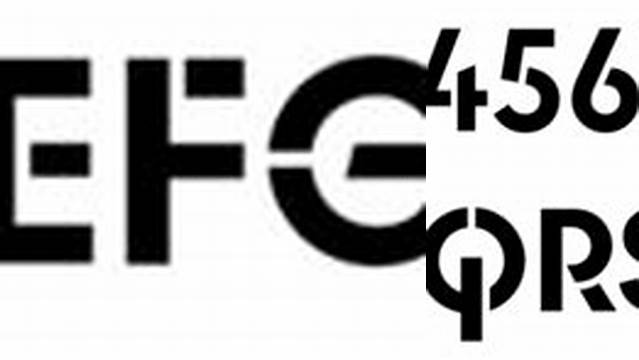
Hey guys! Are you on the hunt for a cool, eye-catching font that's totally free? Look no further! This article is all about the Prossimo Stencil Bold font, and, even better, it's a free download. We'll dive into what makes this font so awesome, where you can snag it, and how you can use it to make your designs pop. Whether you're a graphic designer, a student, or just someone who loves playing around with fonts, this is the place to be. Let's get started and unlock the awesomeness of the Prossimo Stencil Bold font!
What is the Prossimo Stencil Bold Font?
Alright, let's get down to the nitty-gritty. The Prossimo Stencil Bold font is a modern, stencil-style typeface. It's characterized by its bold, blocky letters with strategically removed segments, creating a unique and instantly recognizable look. Think of it as a font that screams “look at me!” without being too over the top. The “stencil” part comes from those little gaps in the letters, which were originally designed to allow for easy application using stencils (hence the name!). This font isn't just about aesthetics; it has a personality. It's strong, confident, and a little bit edgy. It's perfect for headlines, posters, logos, and anything else where you want to make a statement. Its versatility is also a major plus; it looks fantastic in both digital and print formats. You could use it for a band's album cover, a website header, or even a cool t-shirt design. The boldness of the font ensures that it grabs attention, while the stencil style adds a touch of sophistication and a nod to classic design. What makes it stand out, you ask? Well, it's the combination of its bold weight, the stencil cuts, and the overall modern feel. It's a great balance between functionality and style, making it a go-to choice for many designers and creatives. Now, imagine this font on a flyer – it's going to be awesome! The possibilities are truly endless. You could pair it with a simple, clean background to let the font shine, or use it in a more complex design to add a touch of boldness. The best part? It's easily readable, even at larger sizes. So, whether you're designing for a digital screen or a printed page, the Prossimo Stencil Bold font will deliver the impact you're looking for.
Prossimo Stencil Bold Font Features and Design
When we take a closer look at the Prossimo Stencil Bold font, you'll find a few key features that make it stand out from the crowd. Firstly, the bold weight is a defining characteristic. It gives the font a strong presence, making it ideal for headlines, titles, and any text that needs to grab attention. The boldness ensures that your message is seen and heard. Secondly, the stencil style is a major design element. The carefully placed cuts in each letter are not just aesthetic choices; they also serve a functional purpose. They allow the font to be easily applied using stencils, a technique that has its roots in traditional design but also gives it a modern twist. The gaps in the letters also create a unique visual rhythm, which helps the font stand out. Thirdly, the font’s design is balanced. The letters are well-proportioned, ensuring that they are legible even at smaller sizes. This makes the font suitable for a variety of applications. The design of each character is considered, ensuring a cohesive and attractive overall look. Beyond these features, the font's modern style is another highlight. It feels contemporary and fresh, making it an excellent choice for projects that need a modern feel. Whether you're creating a website, designing a logo, or working on any other project, the Prossimo Stencil Bold font will provide a bold and memorable look. From the simple elegance of the letterforms to the bold statement it makes, this font is an excellent choice for all your design needs. The attention to detail in the design ensures it's both visually appealing and functional, providing a perfect blend of style and usability. The overall design allows for great versatility. You could use it in a minimalist design to create a bold statement or combine it with other design elements to add a touch of sophistication. The stencil-style adds a layer of creativity that many fonts do not have. The simplicity and elegance of the Prossimo Stencil Bold font will make any project stand out.
How to Recognize Prossimo Stencil Bold Font?
Recognizing the Prossimo Stencil Bold font is actually pretty straightforward once you know what to look for. Its distinctive stencil design makes it stand out in a sea of fonts. The key identifier is, of course, the stencil cuts: these are the strategic gaps or breaks in the letters, usually found within the interior parts of each character. This immediately sets it apart from standard bold fonts. Next, look at the overall weight and style. The Prossimo Stencil Bold font is, as the name suggests, a bold font. The thick strokes of each letter make it very legible, even from a distance. The font’s geometric and modern feel is another telltale sign. It’s often based on geometric shapes and clean lines, giving it a contemporary aesthetic. Check the x-height and letter spacing. Prossimo Stencil Bold font has a relatively tall x-height (the height of the lowercase letters) that contributes to its readability. The letter spacing is carefully considered, ensuring that the letters do not overlap, which maintains clarity, even with the stencil cuts. Take note of any unique character traits. Each font designer adds their own subtle nuances to their designs, and the Prossimo Stencil Bold font is no exception. These might include the shape of the “O,” “C,” or “S” or how the stencil cuts are angled or shaped. These details add a personality to the font. Familiarize yourself with its common uses and applications. Recognizing the Prossimo Stencil Bold font becomes easier as you see it used in different projects, from posters to website headings. The font is frequently used where a bold statement is needed. With some practice, you'll be able to spot the Prossimo Stencil Bold font anywhere in a glance.